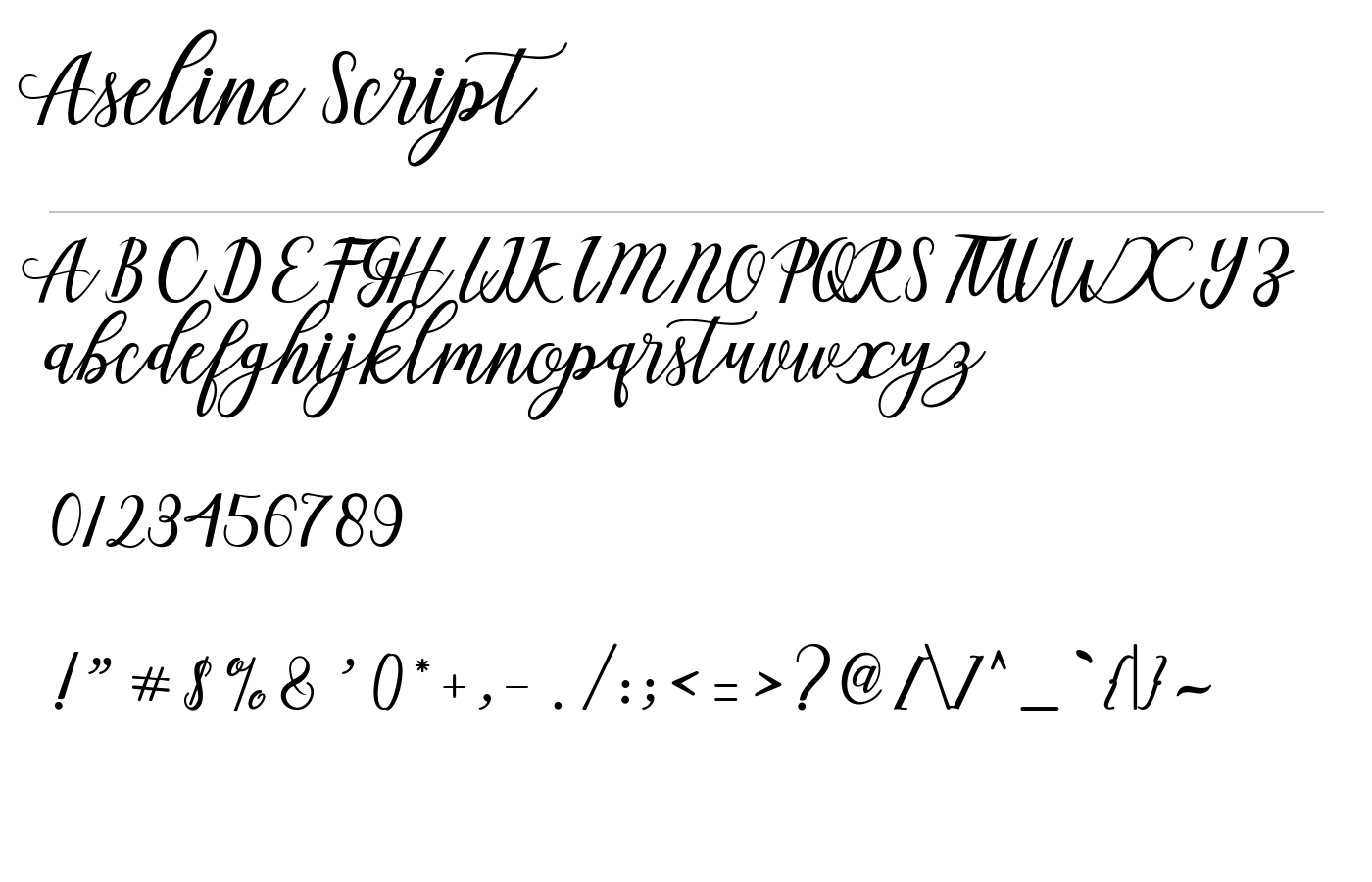
Aseline Script is an elegant and flowing script font characterized by its graceful, high-contrast strokes and smooth, connected letterforms. It conveys a sophisticated and stylish feel, making it perfect for luxury branding, invitations, and fashion-related designs where a touch of refinement and personality is desired. Its balanced letter spacing and cursive nature also make it an excellent choice for expressive headlines or logos that aim to capture a delicate yet confident aesthetic.
Aseline Script Font